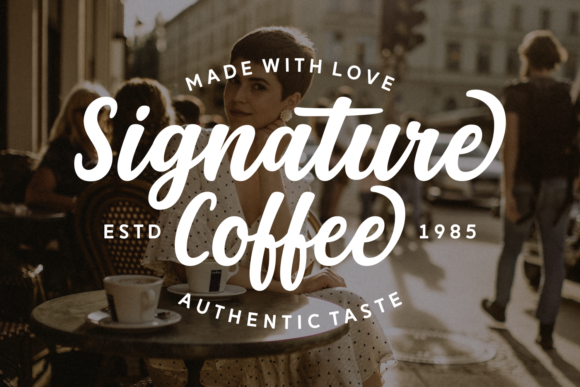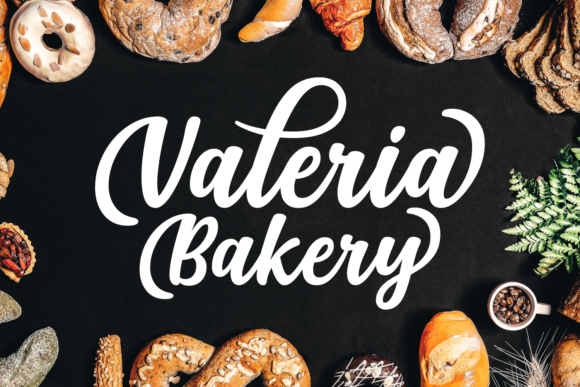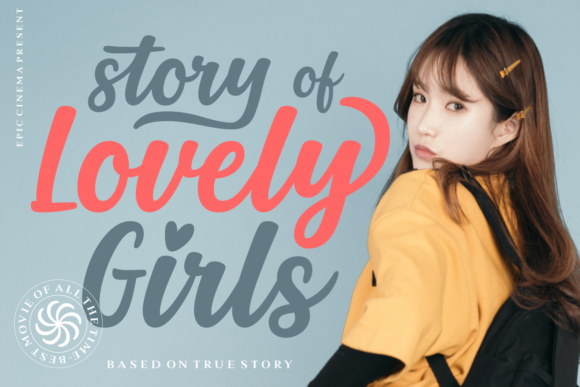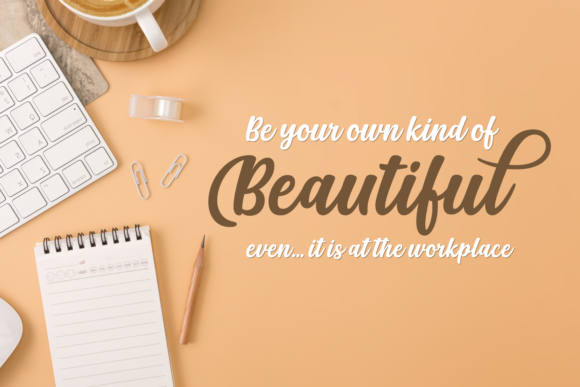
HomeScript FontsFriday Queen Font Script Fonts Friday Queen Font FacebookXPinterestWhatsApp Friday Queen Font Poster 2 Friday Queen Font Poster 3 Friday Queen Font Poster 4 Friday Queen Font Poster 5 About Friday Queen Font Friday Queen is a lovely handwritten font with a unique twist. Get inspired by its adorable and stunning charm. DOWNLOAD ON CREATIVE FABRICAThis font is sold and delivered by Creative Fabrica. Font Canyon may earn a commission if you buy through this link. People also explored Relista Font Pinky Font Freshe Font Slim Font Jummiten Font Mademoiselle, Grandes Vacances & Homemade Text Shining Blossom Font Glitched Arrows Font VenetteHen Font 287 0 TagsFriday Queen Font Previous articleMaryatha FontNext articleSantoy Font LEAVE A REPLY Cancel reply Comment: Please enter your comment! Name:* Please enter your name here Email:* You have entered an incorrect email address! Please enter your email address here Website: Save my name, email, and website in this browser for the next time I comment. Personal Use Free Kinda Sweet Personal Use Free Read more about this font Nuku Nuku Personal Use Free Read more about this font Girl Personal Use Free Read more about this font Evelyne Personal Use Free Read more about this font BLOG Free Fonts Risk: Why Free Fonts Can Be Dangerous for Designers Free Fonts Risk: Why Free Fonts Can Be Dangerous for Designers Using free fonts is a common practice in web and graphic design. However, the... Top 10 Handwritten Fonts That Elevate Your Designs Elegant Wedding Invitation Fonts – Handwritten & Script Fonts The 10 Best Handwriting Fonts to Add Personality to Your Designs